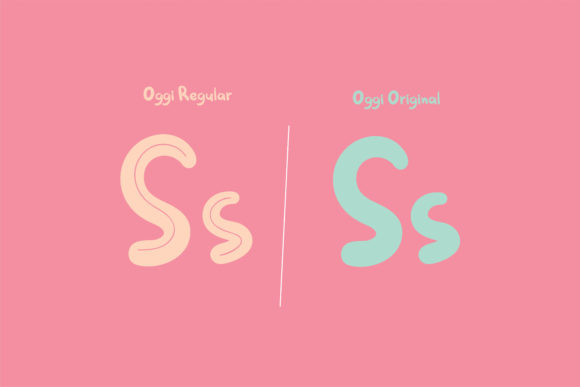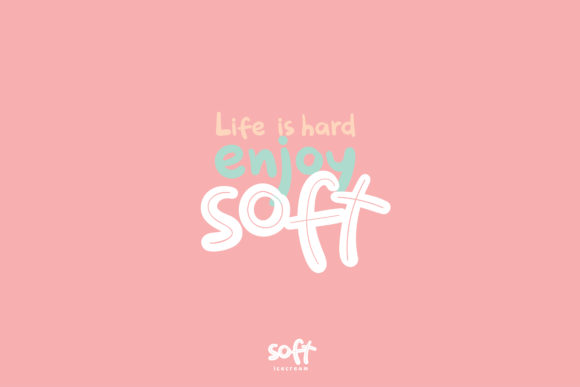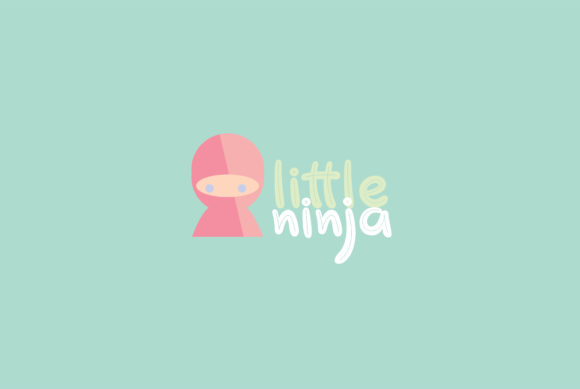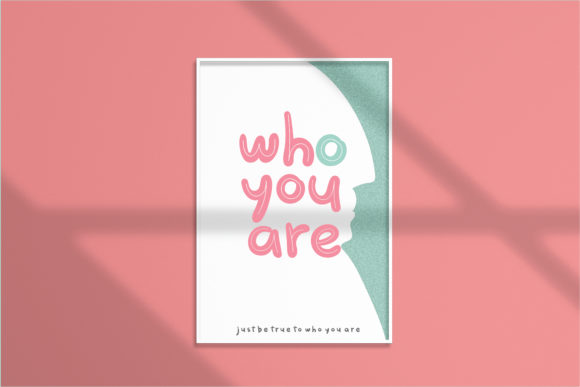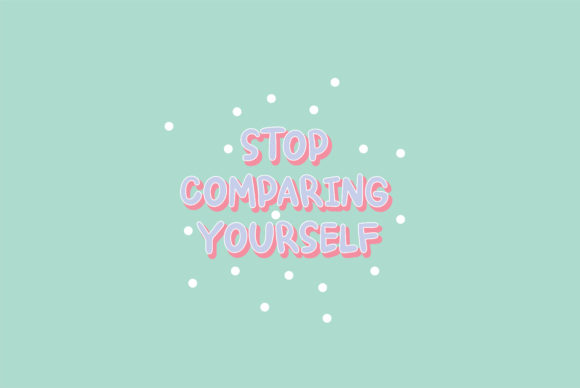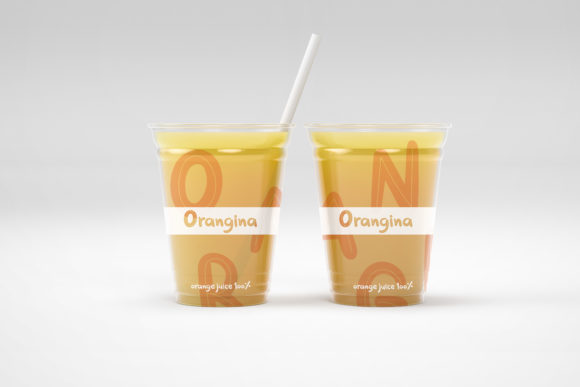
Introduction to Oggi Font
As a designer, have you ever been in the midst of a creative project, searching for that perfect font to give your design an extra touch of personality? I’m sure you have. And if you’re anything like me, you’ve spent hours scouring the internet for the perfect free download to bring your vision to life.
Well, I’m excited to share with you a game-changing design resource that’s sure to elevate your next project: the Oggi Font. This adorable, high-quality handwritten font is an absolute must-have for any designer looking to add a touch of whimsy and charm to their work.
With its transparent background and effortlessly modern feel, the Oggi Font is the perfect addition to any creative project, from kids’ designs to family-friendly branding. And the best part? It’s free to download and use in your next design adventure!
Oggi Font
- High-quality, professional font suitable for various creative projects, including graphic design, digital art, and more.
- Features a transparent background, allowing for seamless integration with other design elements and backgrounds.
- Includes a range of glyphs and characters, making it a versatile design resource for various languages and scripts.
- Designed with precision and attention to detail, resulting in a clean and modern aesthetic that’s perfect for high-end creative projects.
Honest Review: Oggi Font
As a designer, I’m always on the lookout for high-quality design resources to elevate my creative projects. Oggi Font is one of the many fonts I’ve stumbled upon, and I’m excited to share my honest review with you.
- ✨ High-quality design: Oggi Font is a beautifully crafted font with a clean and modern aesthetic.
- ✨ Versatile usage: It can be used for a variety of creative projects, from logos to digital graphics.
- ✨ Transparent background: This feature makes it easy to use Oggi Font as a standalone design element or integrate it with other design elements.
- ⚠️ Limited font variations: Oggi Font only comes in a few styles, which might not be suitable for all design projects.
- ⚠️ Not ideal for complex text layouts: Due to its clean design, Oggi Font might not be the best choice for complex text layouts or those requiring a lot of font variations.
Overall, Oggi Font is a great design resource for designers looking for a high-quality, free font to use in their creative projects. While it has some limitations, its versatility and clean design make it an excellent addition to any designer’s toolkit.
Oggi Font
Oggi Font is a high-quality design resource that can elevate your creative project with its unique and stylish typography. You can download Oggi Font for free and use it in a variety of applications.
Tips for Getting the Most Out of Oggi Font
Some tips for getting the most out of Oggi Font include using it with a transparent background to create a clean and modern design, and experimenting with different font sizes and styles to add visual interest to your design.
Oggi Font is a versatile design resource that can be used in a variety of creative projects, including graphic design, web design, and digital art. It’s a great choice for anyone looking for a high-quality font with a unique and stylish look.